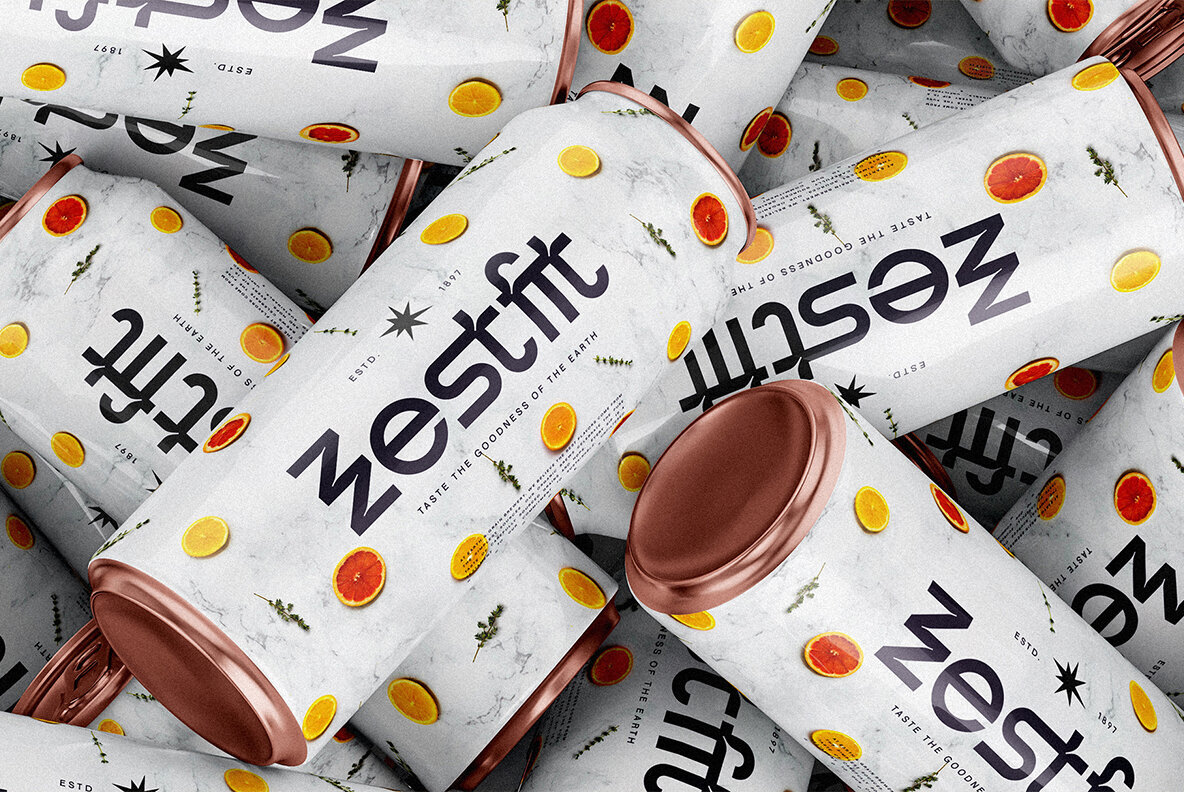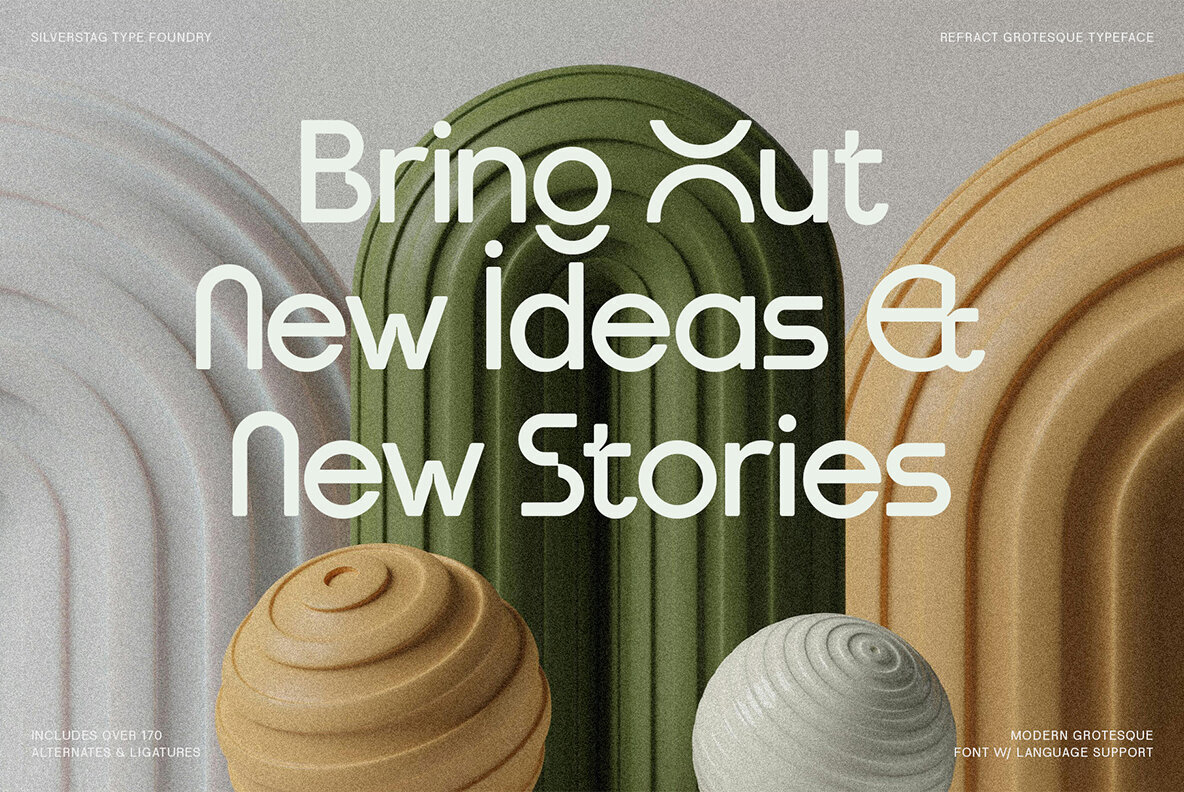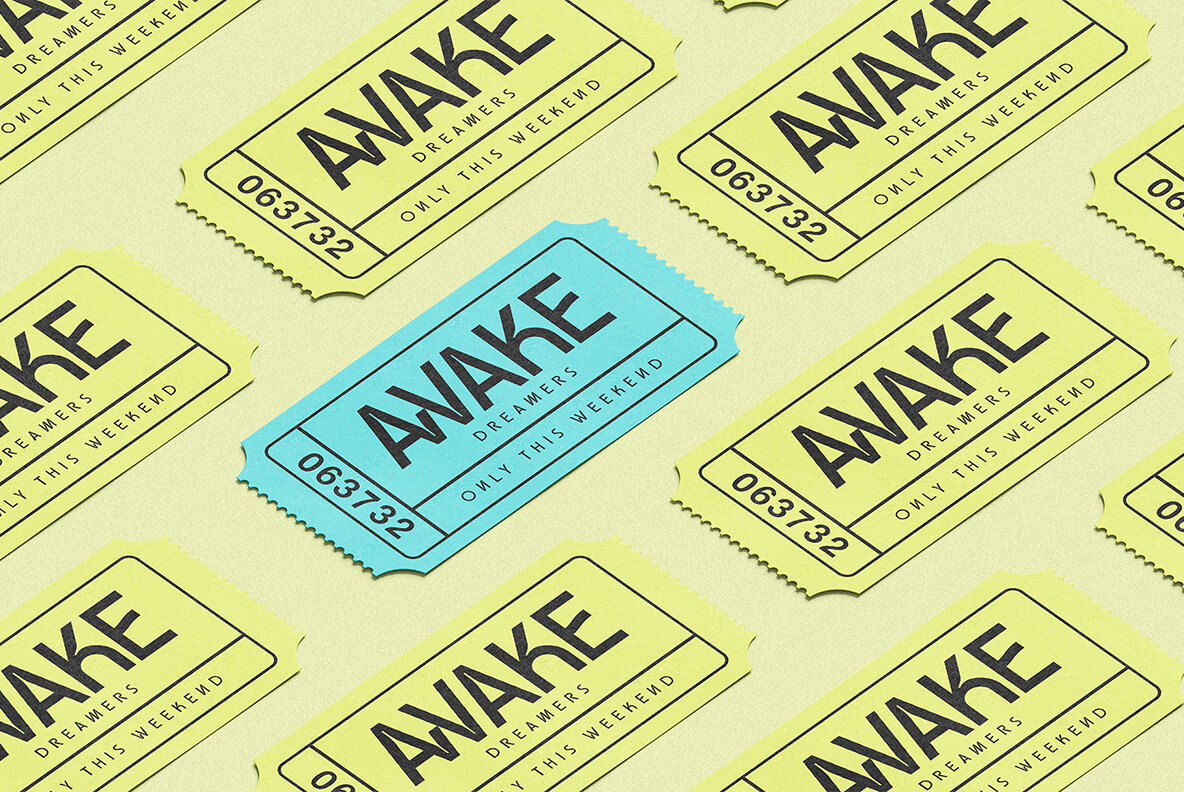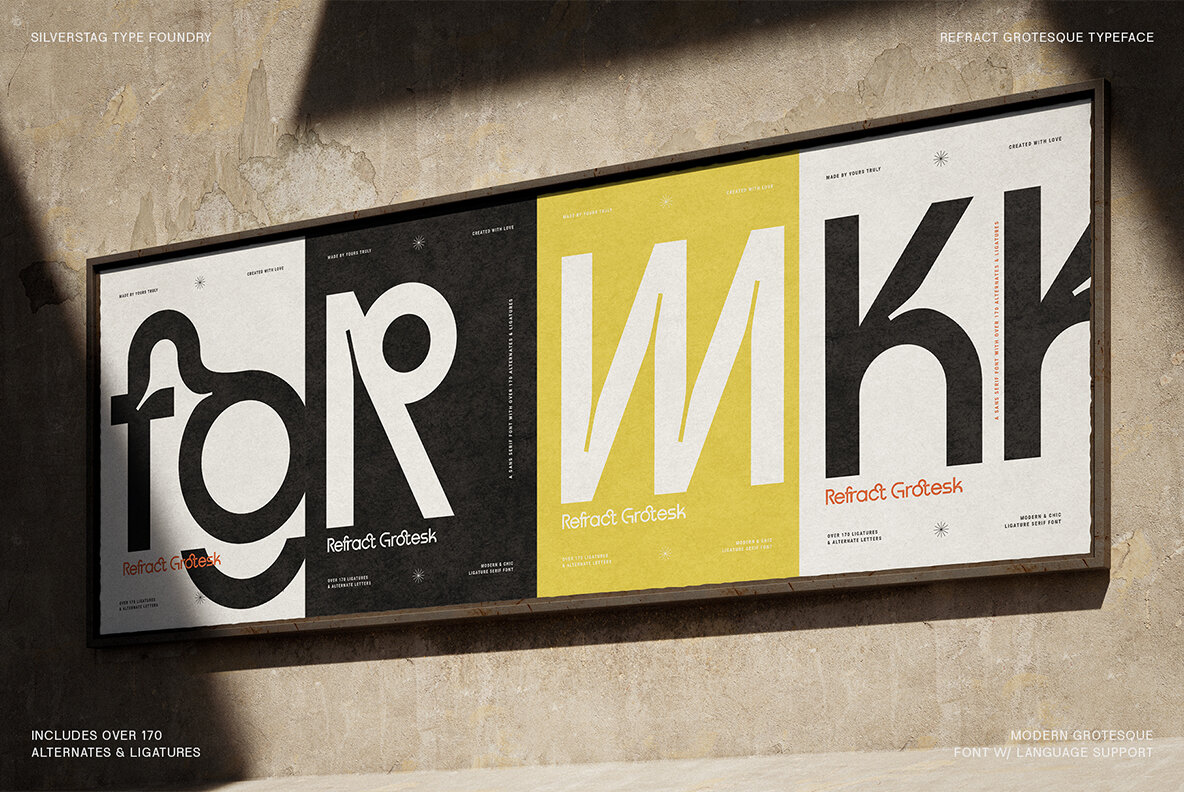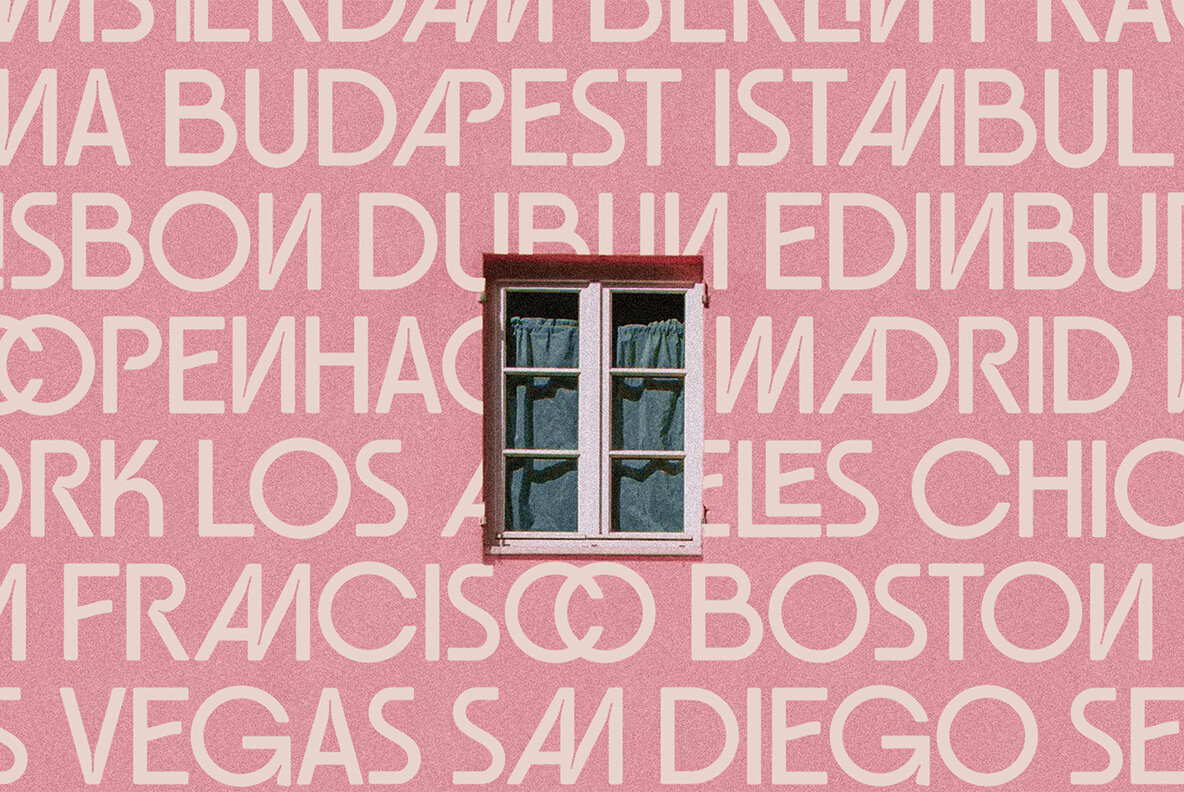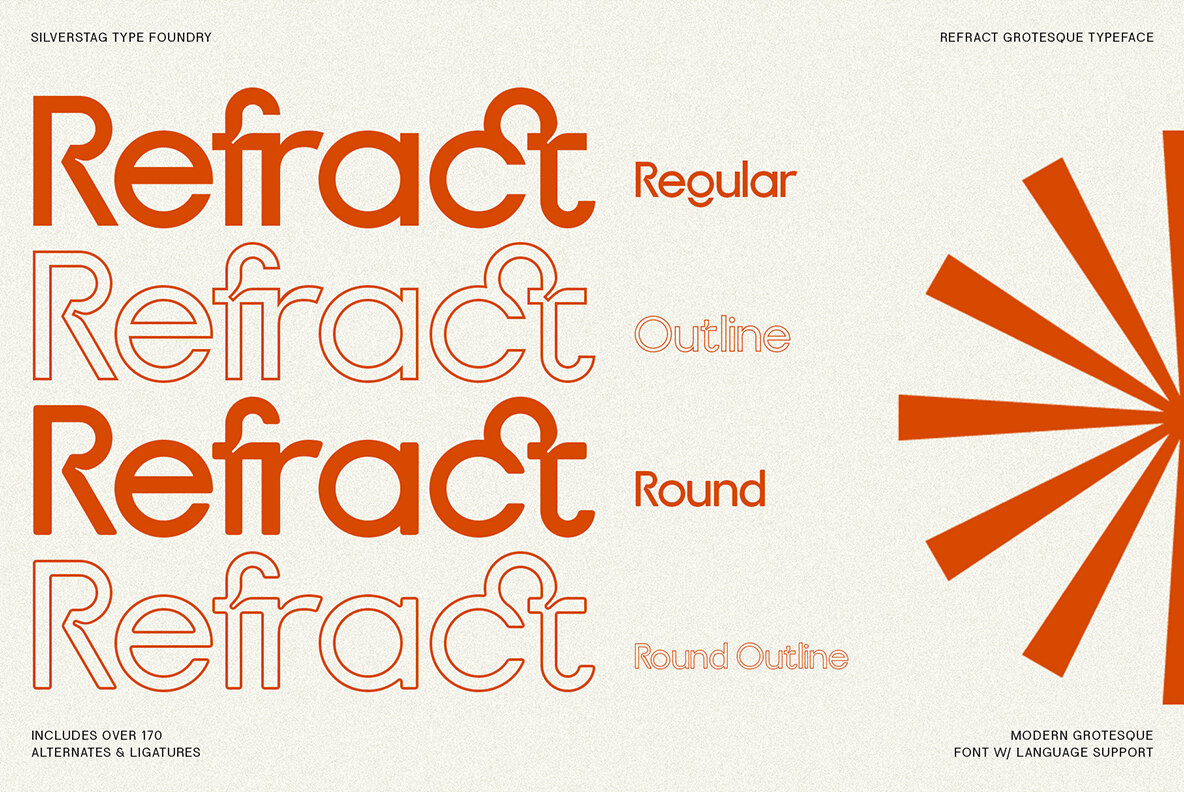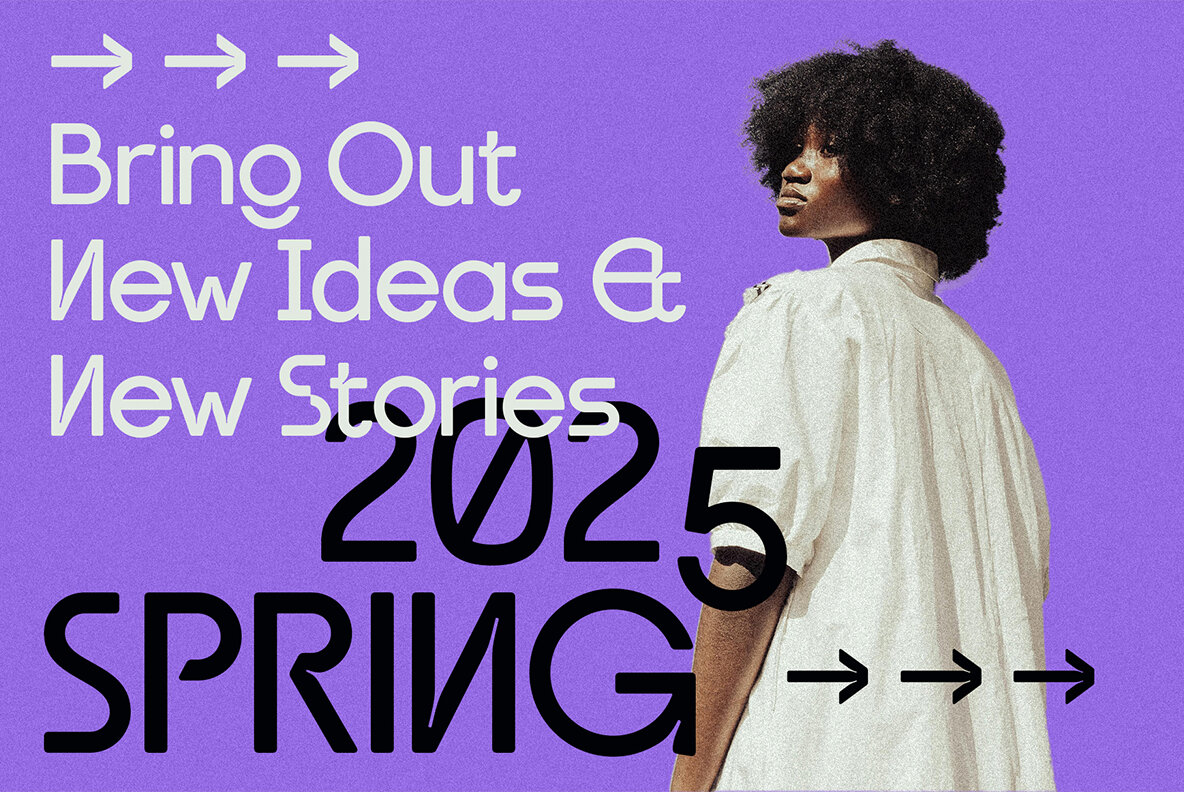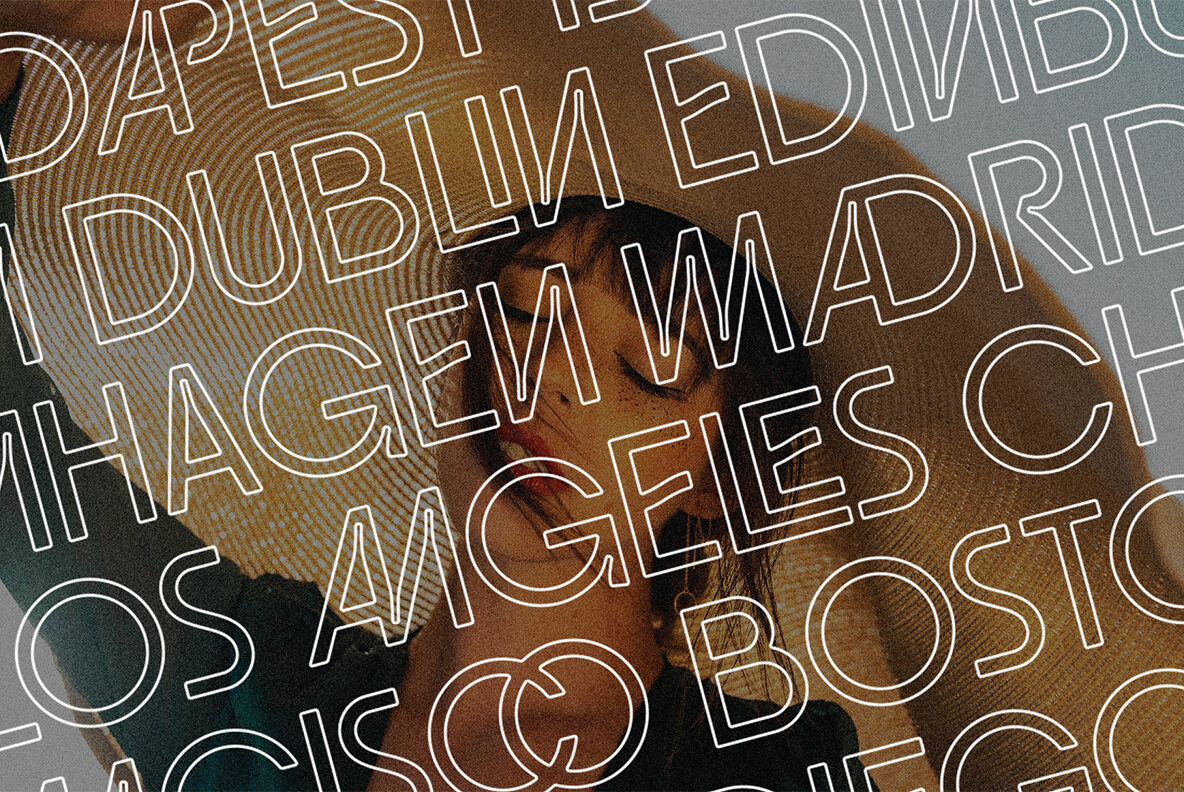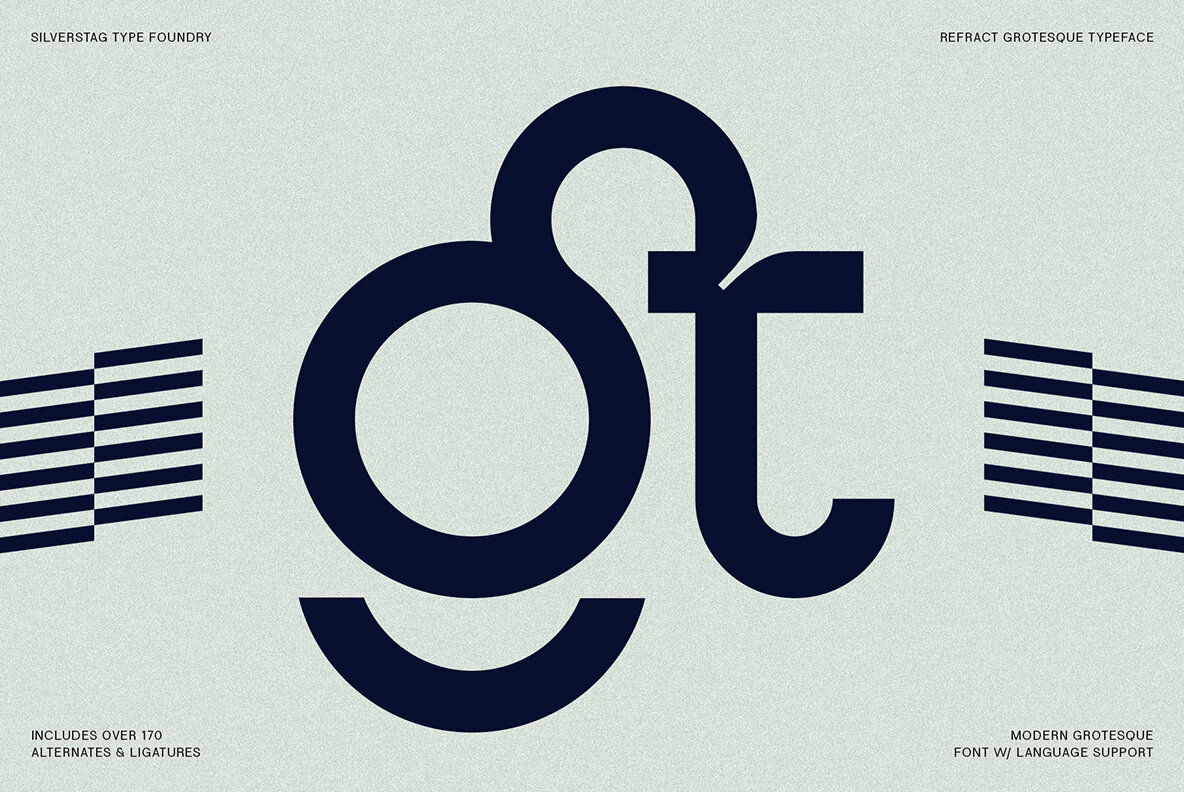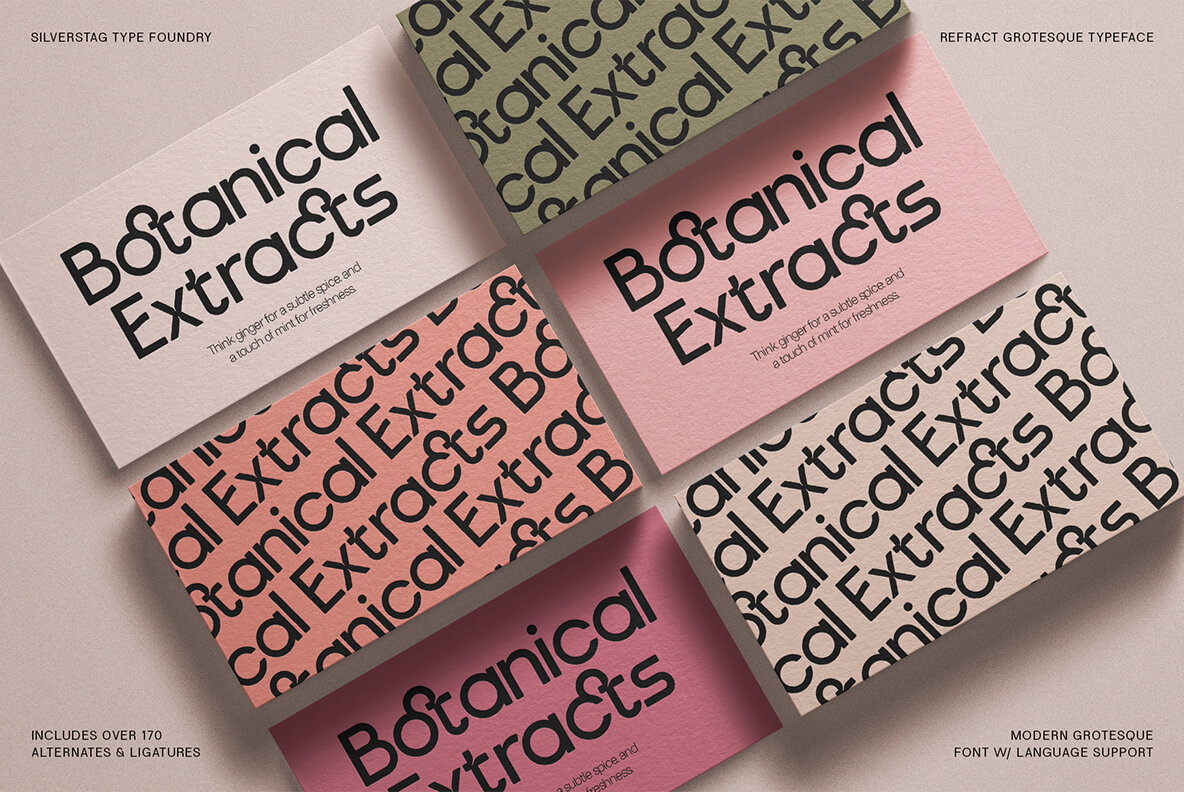
Refract Typeface Font
Refract Regular
Refract Regular Outline
Refract Round
Refract Round Outline
Unleash your creativity with the Refract typeface family, a versatile collection of four captivating fonts that redefine geometric design. Inspired by the mesmerizing interplay of light and form, Refract offers a captivating blend of clarity, structure, and elegance, now amplified by four distinct styles: Refract Regular: The foundation of the family, this grotesk sans serif font exudes confidence and boldness. With over 170 alternates and ligatures, it provides endless possibilities for customization and expressive typography. Refract Outline: A striking variation that adds a touch of airiness and dynamism. Its open forms create a captivating contrast, making it ideal for headlines, logos, and designs that demand attention. Refract Round: Softening the edges of the original, this font introduces a playful yet sophisticated touch. Its rounded terminals invite a sense of approachability, making it perfect for branding, packaging, and designs that require a friendly aesthetic. Refract Round Outline: Combining the best of both worlds, this font merges the rounded forms with the open structure of the outline, creating a unique and eye-catching aesthetic. It's ideal for designs that seek a balance between boldness and softness. With three sets of uppercase letters and two sets of lowercase letters across all styles, Refract empowers you to craft unique and captivating lettering. The intricate connections between letters add a touch of fluidity and artistry, while the extensive language support ensures your message reaches a global audience. Whether you're crafting captivating headlines, designing sleek logos, or creating mesmerizing marketing materials, the Refract typeface family provides the tools to refract your designs into masterpieces of visual storytelling. Elevate your projects with the power of geometry, precision, and endless creativity. Let Refract redefine your design language.Introducing Refract: A Geometric Typeface Family That Shatters Boundaries